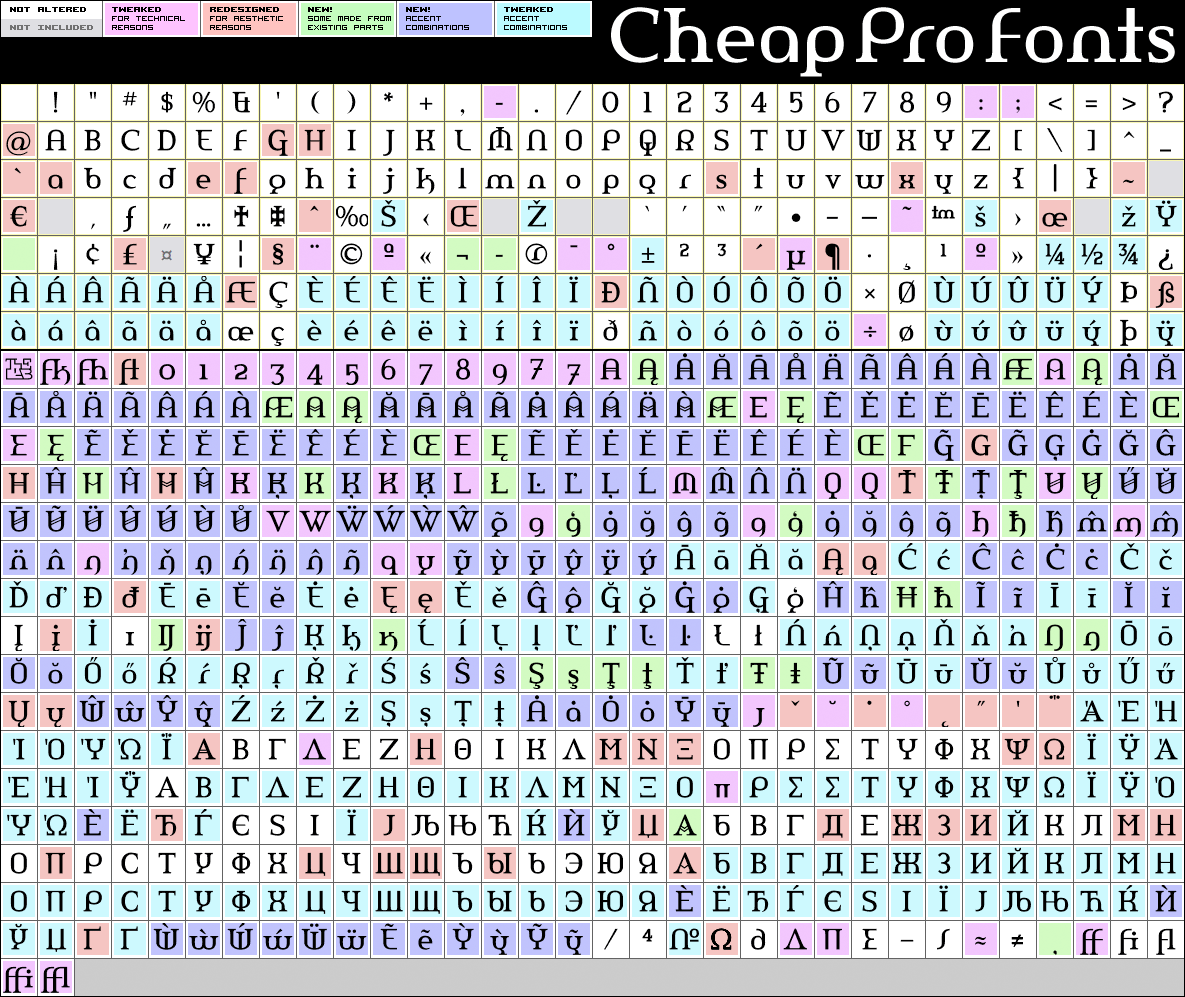
Amerika Pro
Amerika Pro by Fredrick "Apostrophe" Nader
730 glyphs!
(500+50 in original)
786 class kernpairs
= 28756 kerning pairs
(1150 in original)
This is the 200th font released by CheapProFonts, and again I wanted to make something special - so I have chosen to upgrade another well-known font by the infamous Fredrick "Apostrophe" Nader: Amerika!
The whole character set for this stylish font has been polished for consistent baseline placement and serif thickness, and proper overshoots has been implemented. All the alternate letterforms (and some new ones) have been included as OpenType alternates AND they have now been made available with accents, too! The Greek and Cyrillic letterforms are properly encoded and kerned.
Amerika Pro is a professionally reworked font that contains an extended character set for setting text in 65 languages requiring more than the basic A-Z!